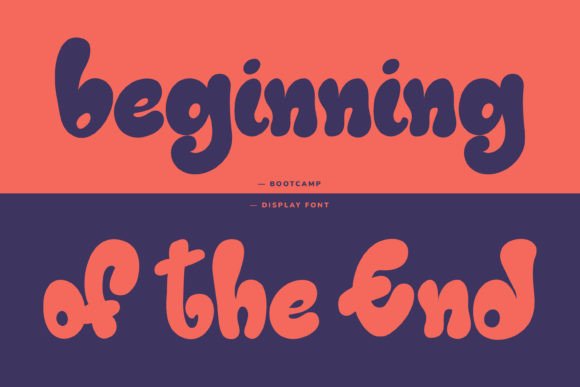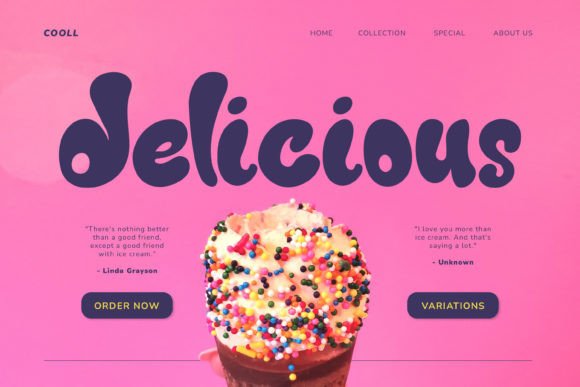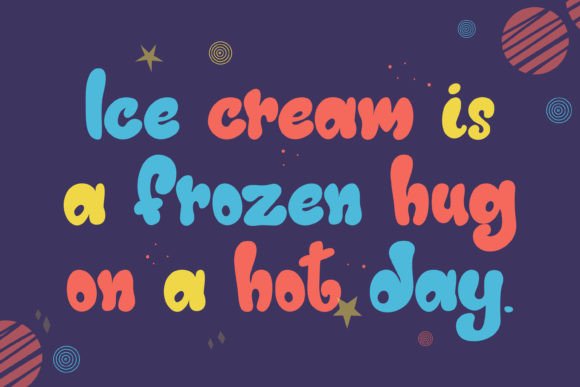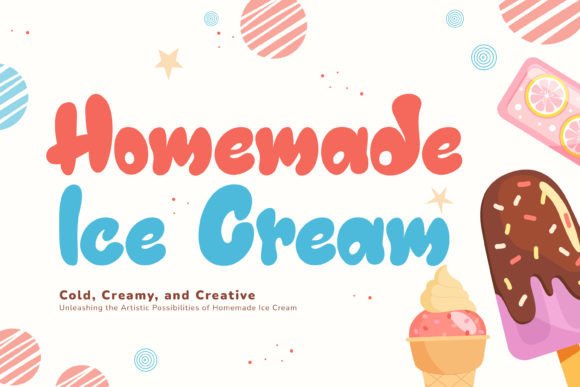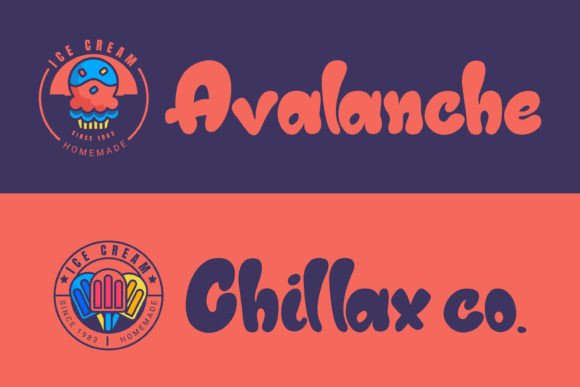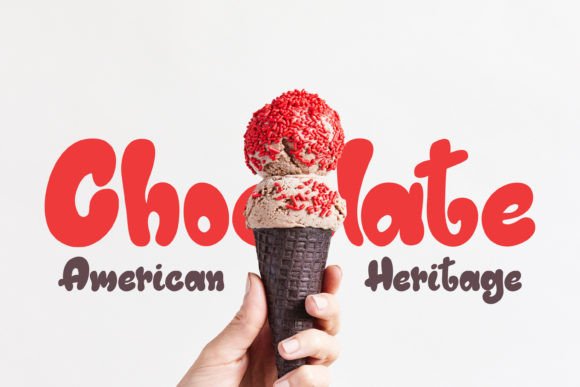
Introducing Bootcamp Font: The Ultimate Display Font for Bold Statements
In the world of typography, a font can make or break a design project. When it comes to creating eye-catching posters, headlines, and other visual elements, a bold and attention-grabbing font is essential. That’s where Bootcamp Font comes in – a bulky and attractive display font that’s designed to command attention with its robust letterforms.
The Power of Bootcamp Font
Bootcamp Font is a game-changer for designers and crafters looking to add a touch of boldness to their projects. Its strong presence and unique texture make each character a statement piece. Whether you’re working on a poster, headline, or any other design project that requires a powerful and attractive display, Bootcamp Font is the perfect choice.
Key Features of Bootcamp Font
- Bold and Robust Letterforms: Bootcamp Font features bold and robust letterforms that are designed to grab attention.
- Unique Texture: Each character has a unique texture that adds depth and visual interest to your design.
- Perfect for Display Purposes: Bootcamp Font is specifically designed for display purposes, making it ideal for posters, headlines, and other visual elements.
- Easy to Read: Despite its bold and robust design, Bootcamp Font is easy to read, even at smaller sizes.
What Makes Bootcamp Font Stand Out
So, what sets Bootcamp Font apart from other display fonts on the market? Here are a few key factors:
- Uniqueness: Bootcamp Font has a distinctive look that sets it apart from other fonts.
- Versatility: Bootcamp Font can be used in a variety of design projects, from posters and headlines to logos and branding.
- High-Quality Design: Bootcamp Font is designed with high-quality craftsmanship, ensuring that it looks great in any design project.
How to Use Bootcamp Font in Your Design Projects
Using Bootcamp Font in your design projects is easy. Here are a few tips to get you started:
- Pair it with a Simple Font: Pair Bootcamp Font with a simple font to create visual contrast and make your design stand out.
- Use it for Headlines: Bootcamp Font is perfect for headlines and titles, where its bold and robust design can shine.
- Experiment with Colors: Bootcamp Font looks great in a variety of colors, so don’t be afraid to experiment and find the perfect hue for your design.
Benefits of Using Bootcamp Font
By using Bootcamp Font in your design projects, you can enjoy a range of benefits, including:
- Increased Visibility: Bootcamp Font is designed to grab attention, making it perfect for projects where you want to increase visibility.
- Improved Brand Recognition: By using a unique and memorable font like Bootcamp Font, you can improve brand recognition and create a lasting impression.
- Enhanced Creativity: Bootcamp Font’s bold and robust design can inspire creativity and help you think outside the box.
In conclusion, Bootcamp Font is a powerful and attractive display font that’s perfect for designers and crafters looking to make a bold statement. With its unique texture, bold and robust letterforms, and high-quality design, Bootcamp Font is the ultimate choice for any design project that requires a strong presence. So why settle for a bland and ordinary font when you can make a statement with Bootcamp Font?